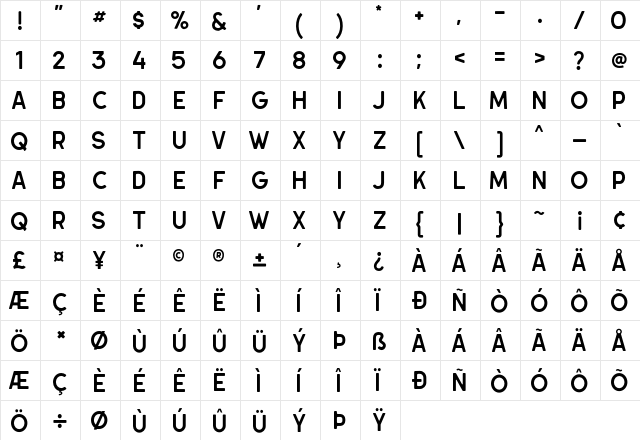
Hillstown Sans Clean
Clean · Letterhend Studio Septianto Nugroho ·
DesignerSeptianto Nugroho
Design Context for Hillstown Sans Typeface
Hillstown Sans takes a measured approach to typography — its balanced proportions and neutral character make it a reliable workhorse for both digital and print work.